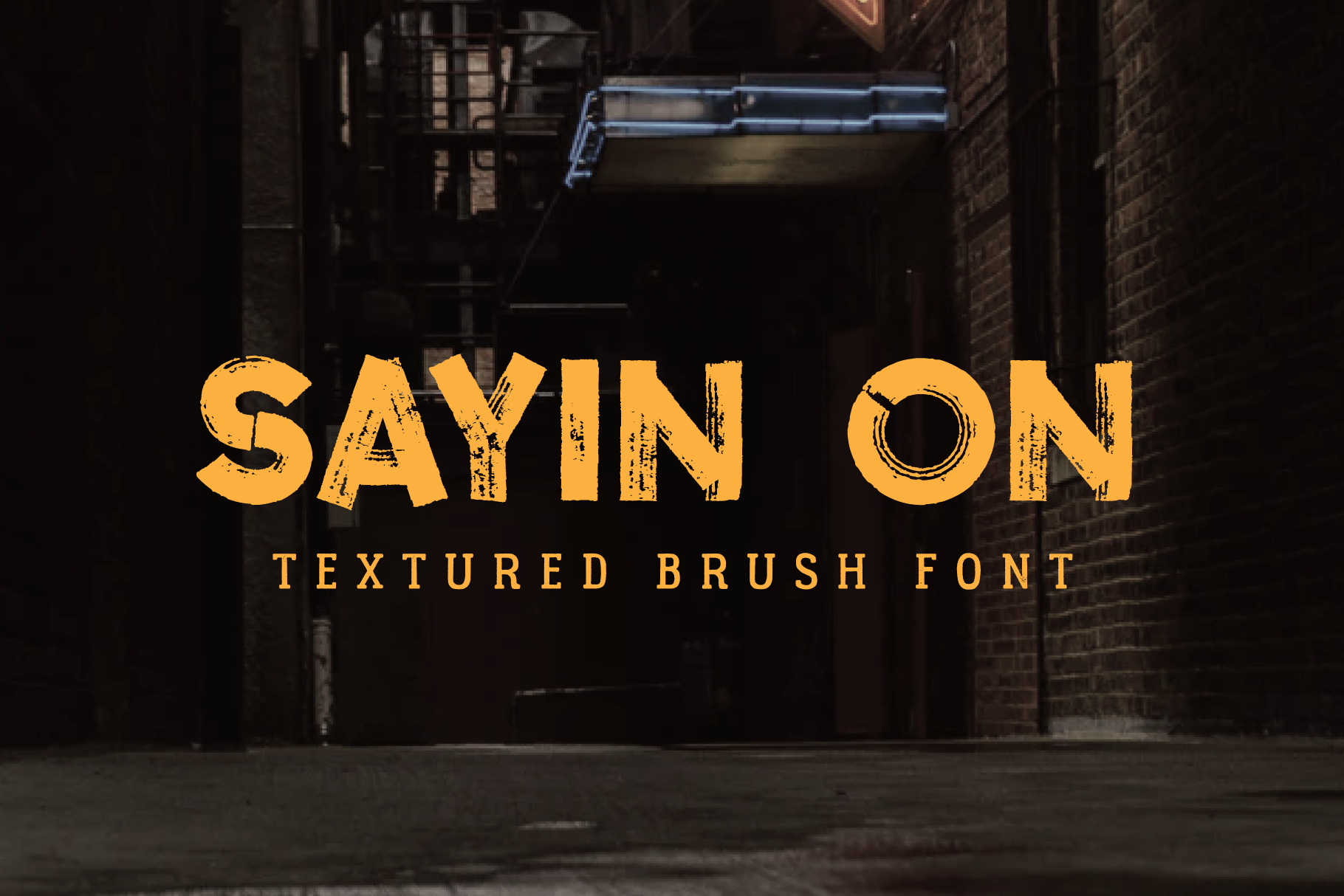
Sayin On - Textured Font
"Sayin On" is a textured font with hand brushed strokes.
It’s hard and grunge. Best using in branding, logos, title design, t-shirt, covers design, poster and events.
- Basic latin glyphs
- Uppercase letters
- Numbers & Basic punctuation